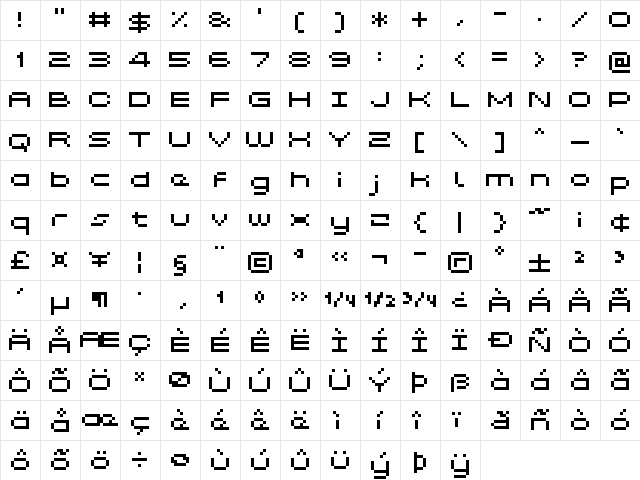
Grixel Kyrou 5 Wide Xtnd Regular
| Foundry | Nikos Giannakopoulos |
Design Context for Grixel Kyrou 5 Wide Xtnd Typeface
Grixel Kyrou 5 Wide Xtnd offers clean, dependable letterforms without strong stylistic allegiance, making it a practical choice for designers who need flexibility.